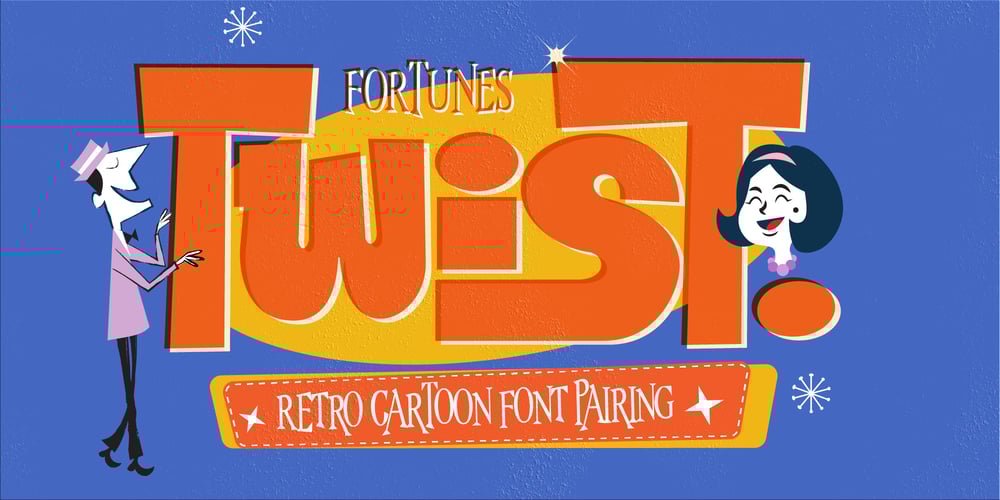
Fd Twist Font Family was designed by Ramandhani Nugraha and published by Fortunes Co. Fd Twist contains 4 styles and family package options. The Twist font is a bold typeface with a playful appearance. I tried to combine 2 fonts inspired by TV broadcasts, mid-century storybooks. It is suitable for broadcast, labels, logos, magazines, clothing and other commercial purposes. You can choose from three styles, regular, round, and rough, so you can get the retro/modern look you want